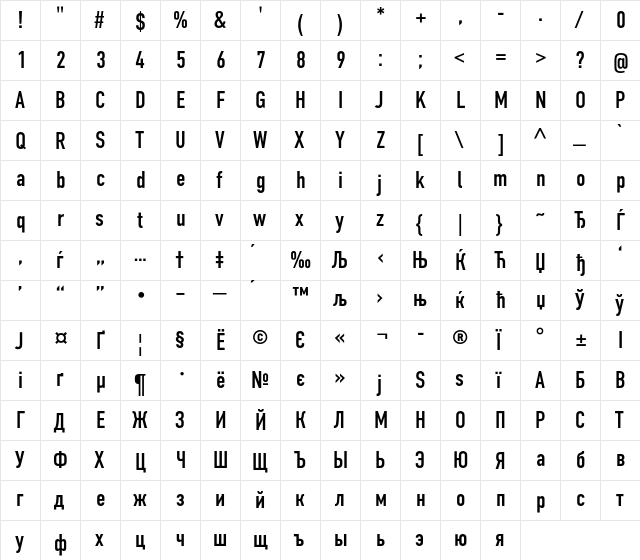
DINCondensedC Regular
Design Context for DINCondensedC Typeface
DINCondensedC offers clean, dependable letterforms without strong stylistic allegiance, making it a practical choice for designers who need flexibility. Its narrow stance lets it pack a punch even in space-constrained designs.